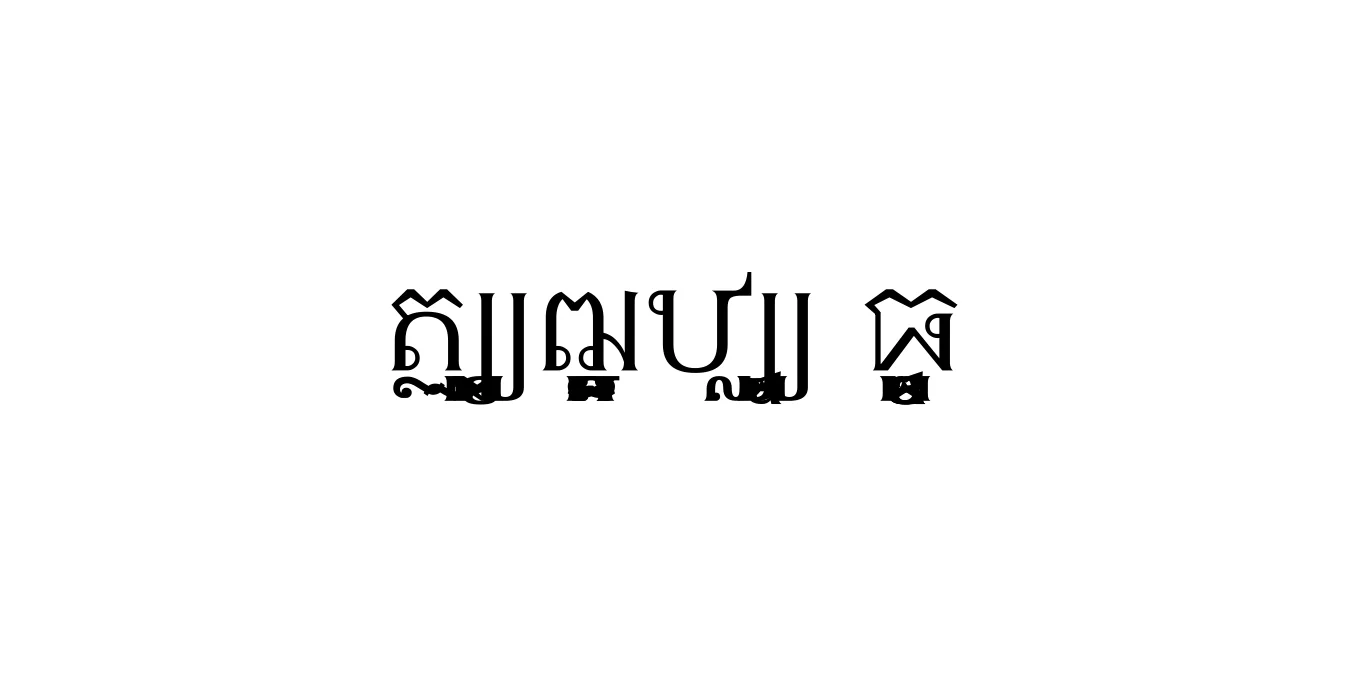
OptimaModokiKhmer Regular
Designed by Danh Hong
OptimaModokiKhmer Regular is a sophisticated typeface designed to bridge the gap between traditional Khmer calligraphy and modern humanist sans-serif aesthetics. It features clean, elegant strokes that prioritize legibility across various media, making it an excellent choice for both high-resolution print and screen-based displays. The font is engineered with a focus on visual harmony, ensuring that Khmer and Latin characters coexist seamlessly in multilingual layouts.
Developed as part of the movement to digitize and modernize Khmer typography, this font is fully Unicode compliant. Its structural design is inspired by classic proportions, yet it maintains a contemporary feel that works well in professional environments. It is frequently utilized in academic publications, official documents, and modern web interfaces where clarity and cultural resonance are paramount.
OptimaModokiKhmer Regular Best Uses
Ideal for books and magazines requiring high legibility in Khmer script.
Optimized for clean and modern user interfaces and blog content.
Suitable for professional branding and official bilingual correspondence.
Perfect for educational materials, textbooks, and research papers.